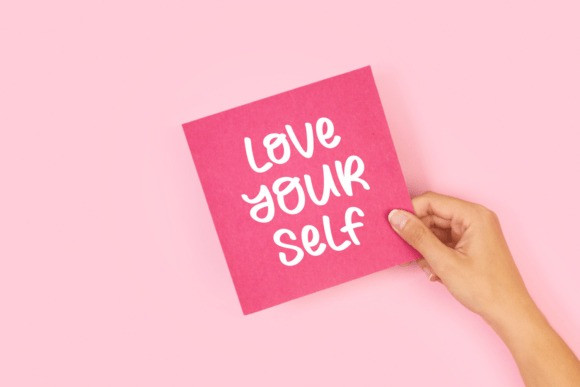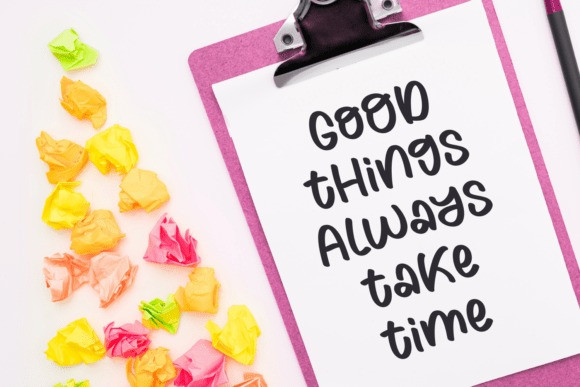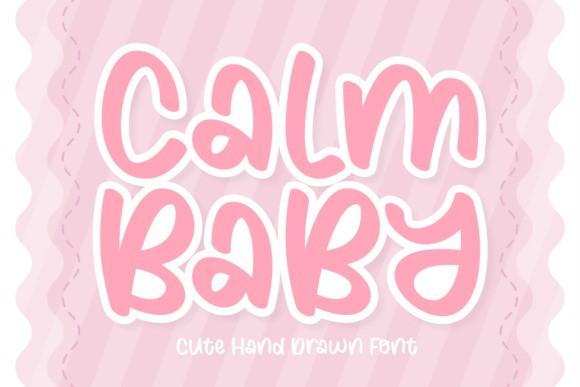
Calm Baby Font
Calm Baby Font, a showcase of versatile typography that is ready to make your designs stand out. This font is a delightful blend of display, cute, and beauty, perfect for creating stunning visual elements. Thanks to its hand-drawn and craft aesthetics, you get an authentic, heart-warming feel that can effortlessly elevate any project.
“Calm Baby” caters to a wide range of applications: Craft stylish social media posts or timeless prints; create impactful branding or make your quotes memorable – the possibilities are endless. Its strength lies in its ability to be distinctive yet understandable, making it equally perfect for school projects, apparel design, book covers, greeting cards, and magazines.
Thinking of crafting a logotype? Or working on your next bestselling book? “Calm Baby” is well-suited for both. Its clean and trendy style, combined with its engaging cursive qualities, ensures your project never goes unnoticed. And for cover design or card creation, its beautiful accents will help your work leave a lasting impression.
But “Calm Baby” is more than just aesthetics. It offers multilingual support to ensure its wide reach and flexibility. From sublimation prints to t-shirt designs, from seasonal graphics to quirky cartoons, “Calm Baby” promises to exhibit your content in its best light. So why wait? Let “Calm Baby” breathe life into your designs today!